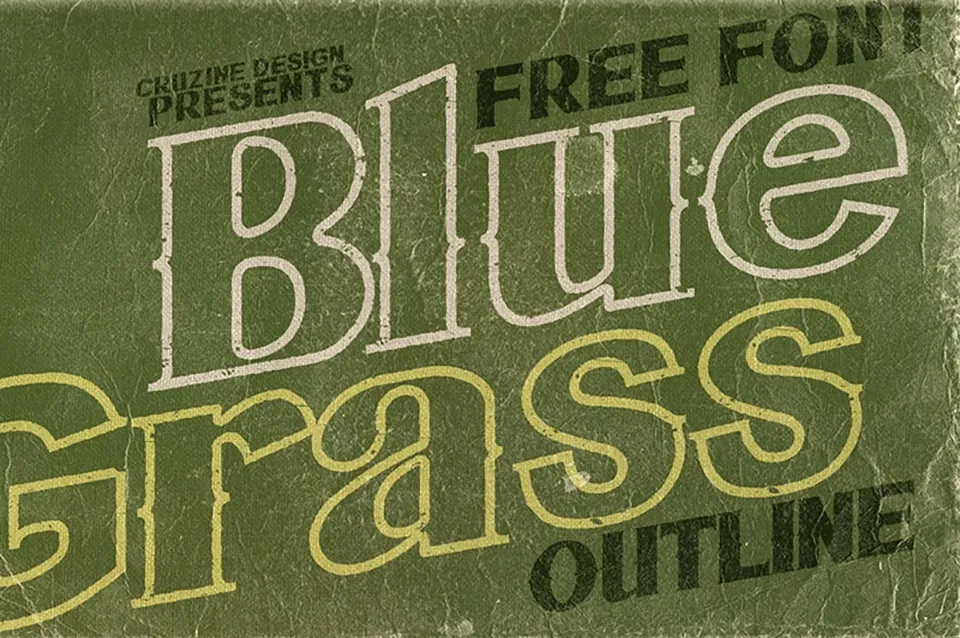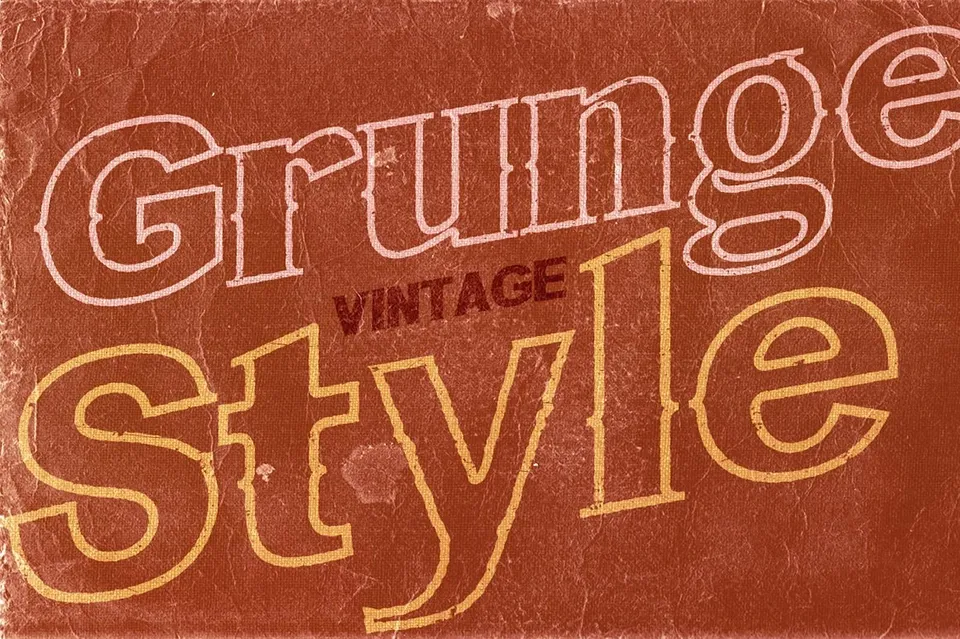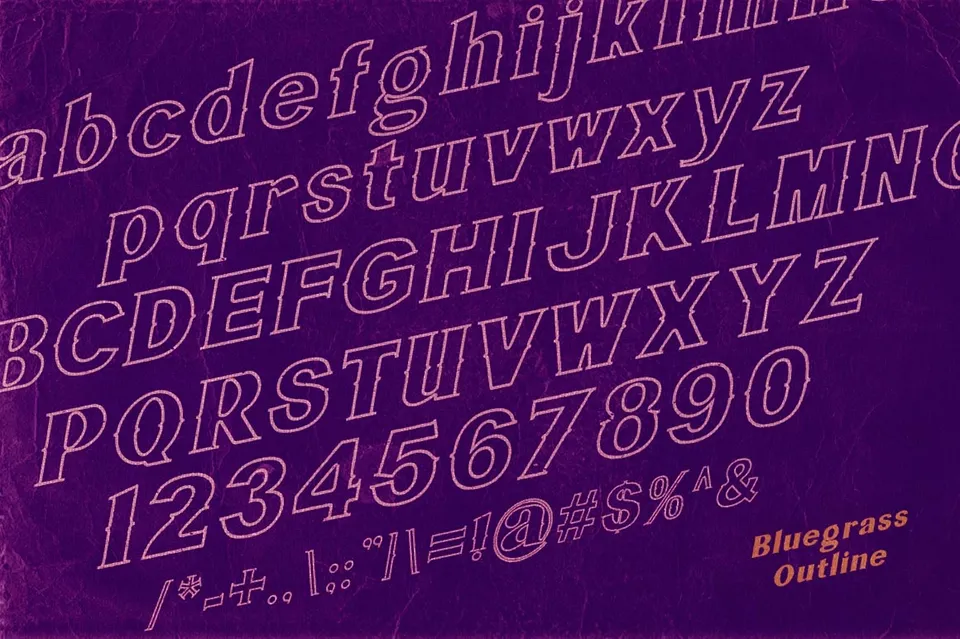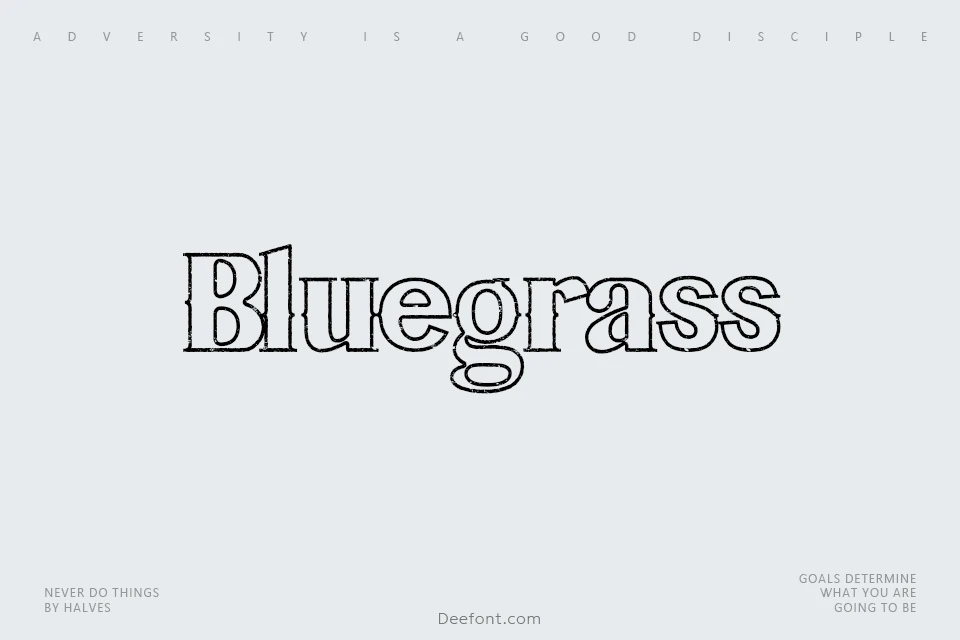
Bluegrass Font
Bluegrass Font is a bold and vintage-inspired outline font that captures the essence of classic Americana. With its rugged yet stylish design, it evokes a sense of nostalgia and charm, making it perfect for projects that require a rustic or retro aesthetic. Ideal for posters, signage, logos, and branding, Bluegrass stands out with its unique outlined letterforms and textured appearance. The font’s handcrafted feel adds character and authenticity to any design, while its versatility ensures it can be adapted to various creative applications. Bluegrass is a great choice for designers looking to create impactful visuals with a timeless, vintage flair.